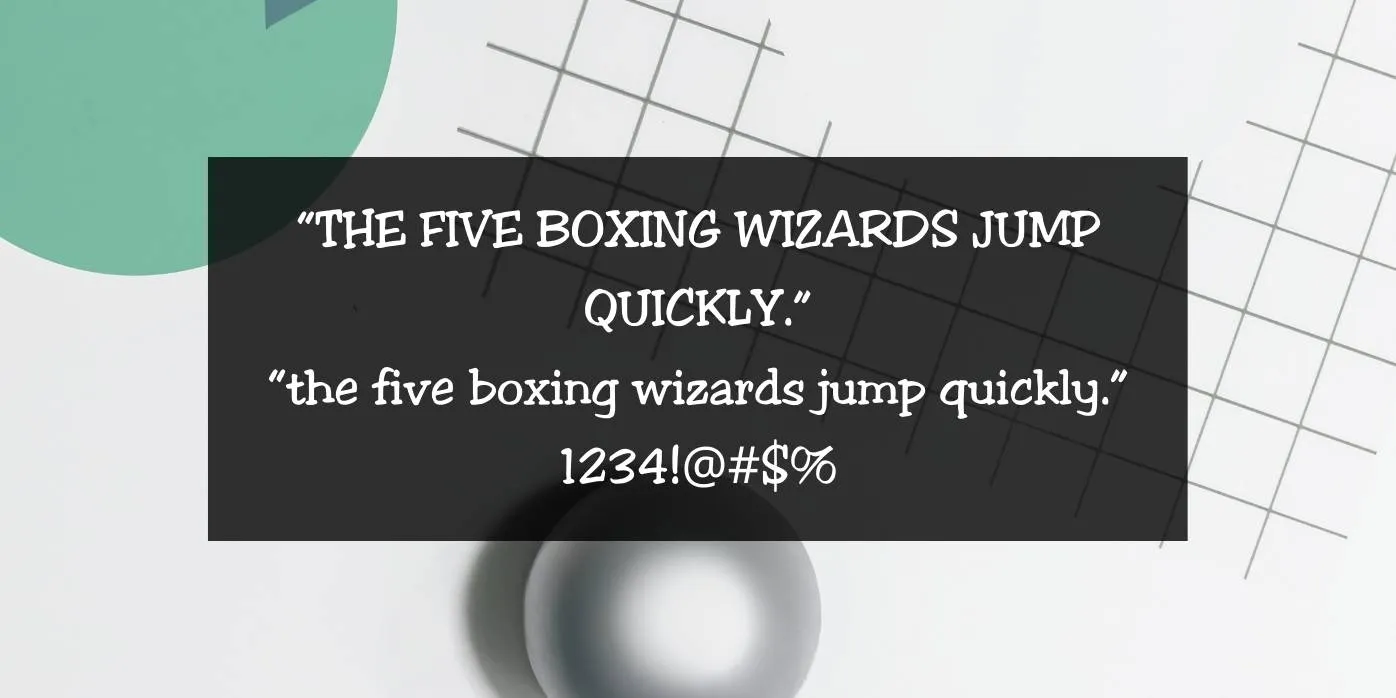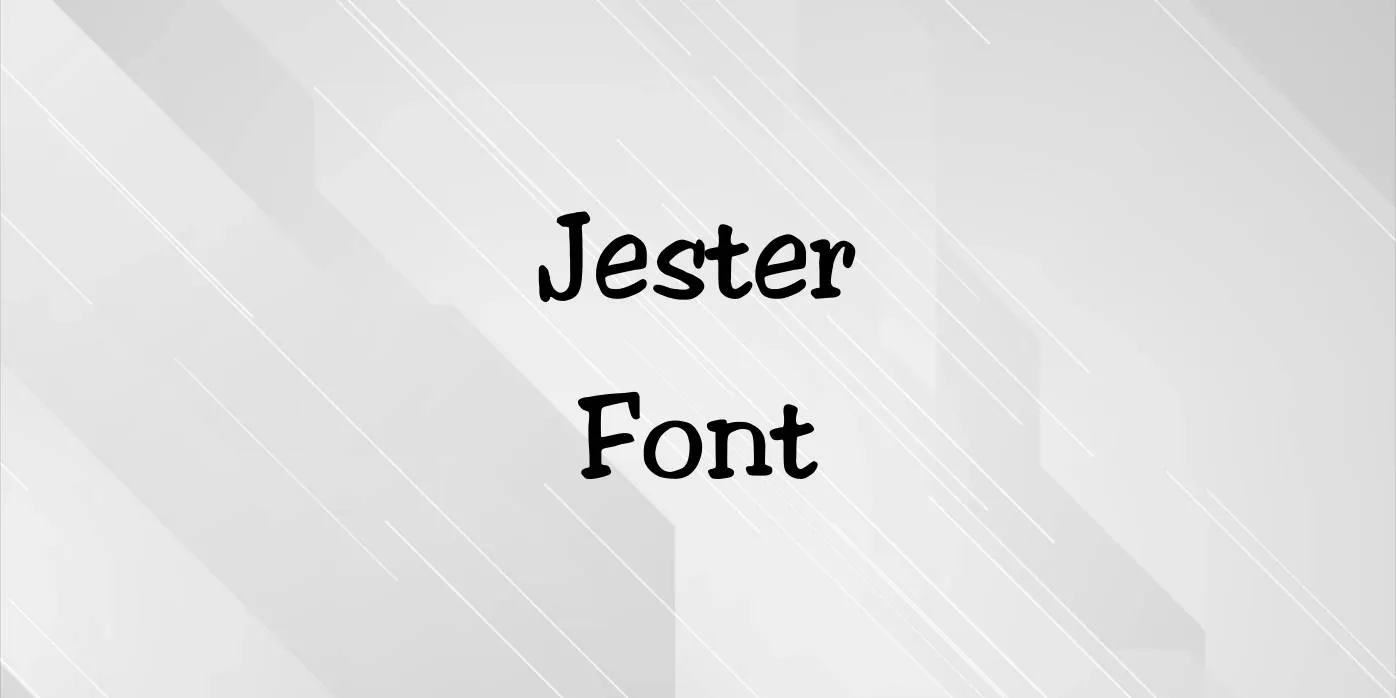
Jester Font
Today we are consulting on a very attractive typeface named Jester Font. This typeface belongs to the fancy font family. It was created by David Occhino in 2004. It supports many languages such as English, French, Spanish, and so on.
Jester Font is a curly typeface with bouncing characters. It is best suited for headlines and short texts. You can use it for both digital and print projects. The font includes upper and lowercase letters, numbers, symbols, and accented characters.